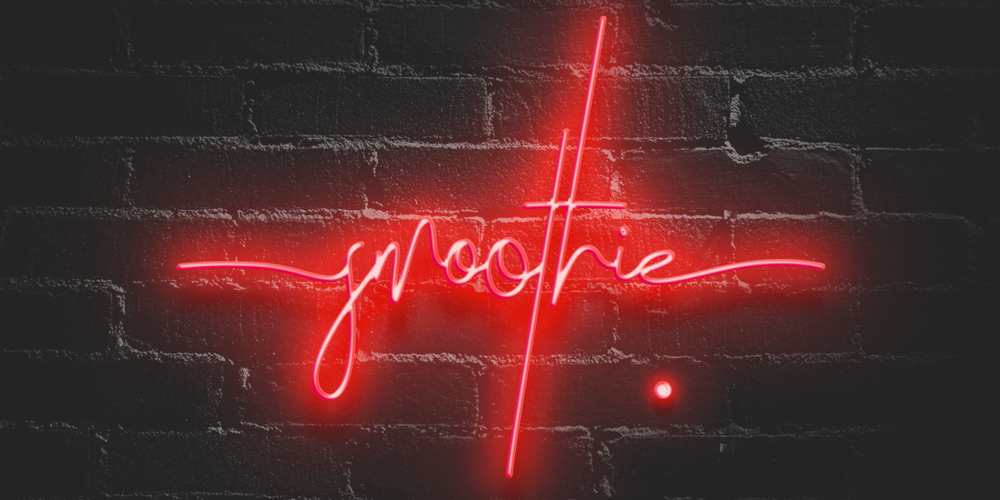
Trio smoothie Font Family was designed by Wahyu Rahmawan and published by Factory738. Trio smoothie contains 3 styles and family package options. Smoothie is a classy, contemporary pair of script and sans-serif fonts. Its offers beautiful typographic harmony for a diversity of design projects, headlines, branding visual identity, poster, logo, magazines and etc. 3 Fonts (Script, Script Italic, and Sans) Upper and lowercase characters, numerals, punctuation Alternate & lignature glyphs are available Multilingual support Thanks for looking, and I hope you enjoy it!